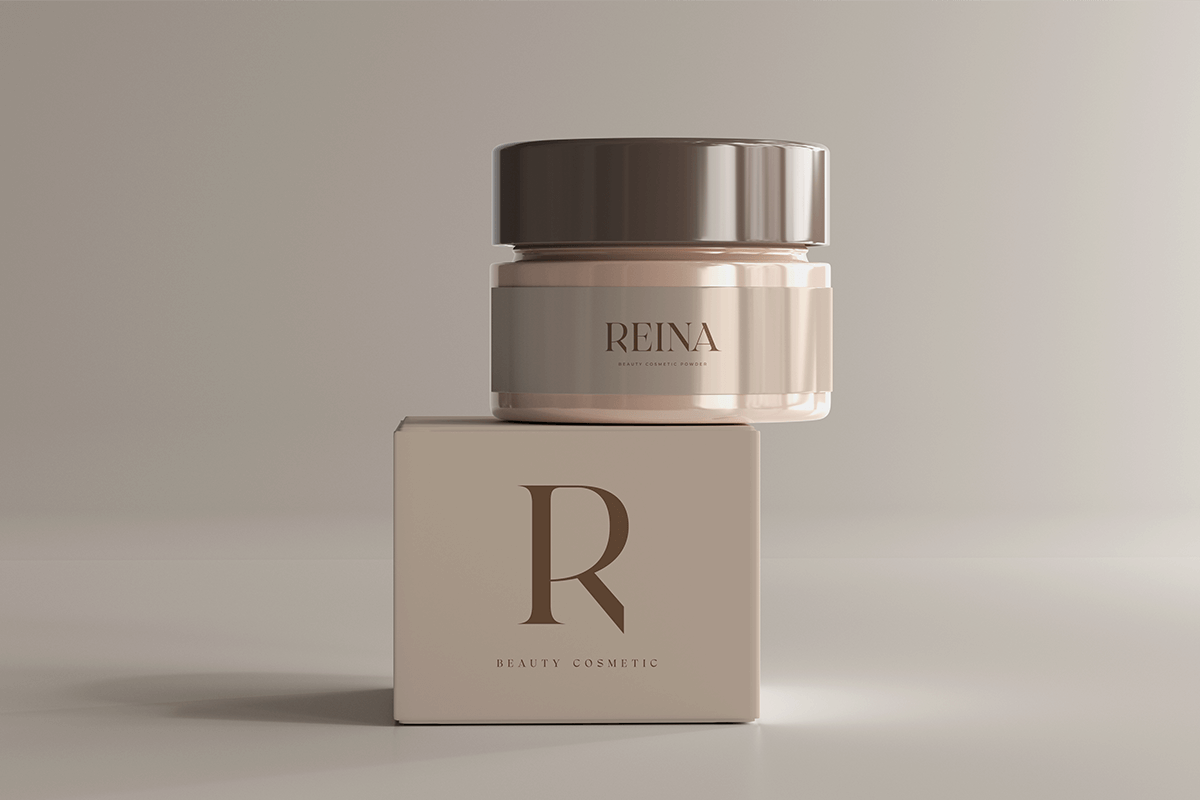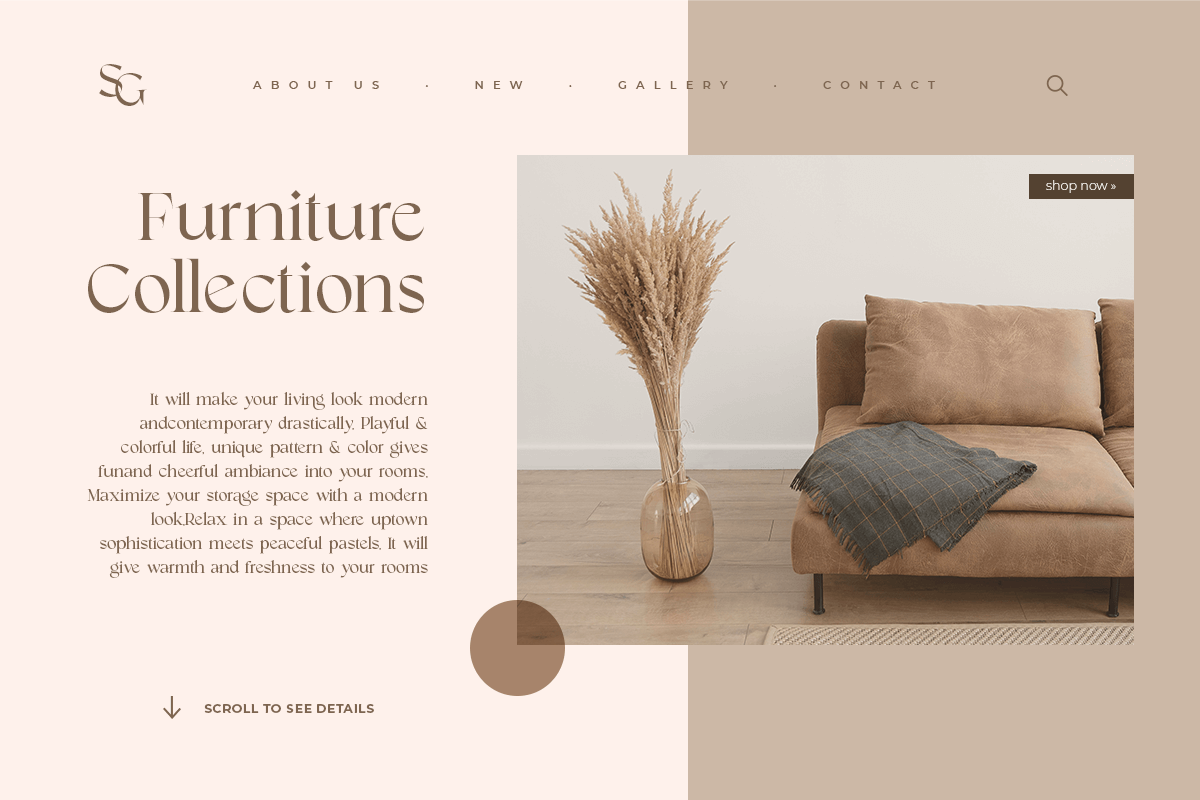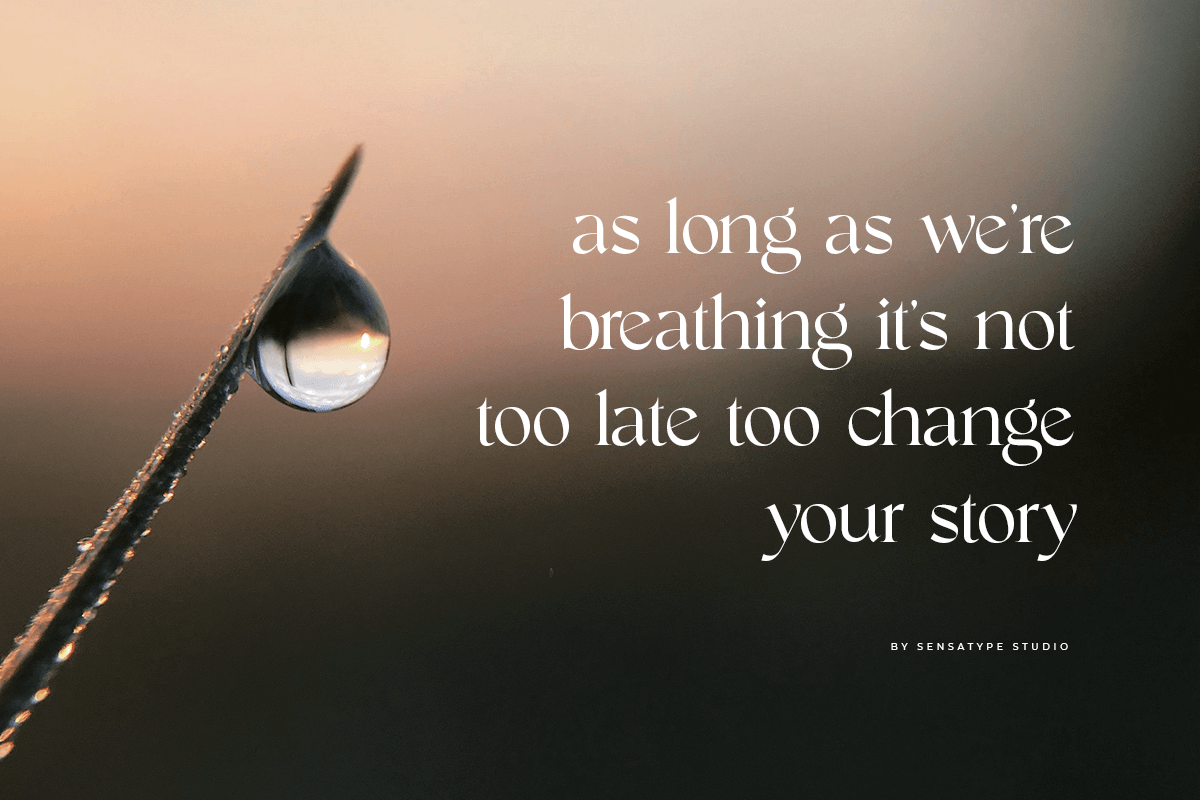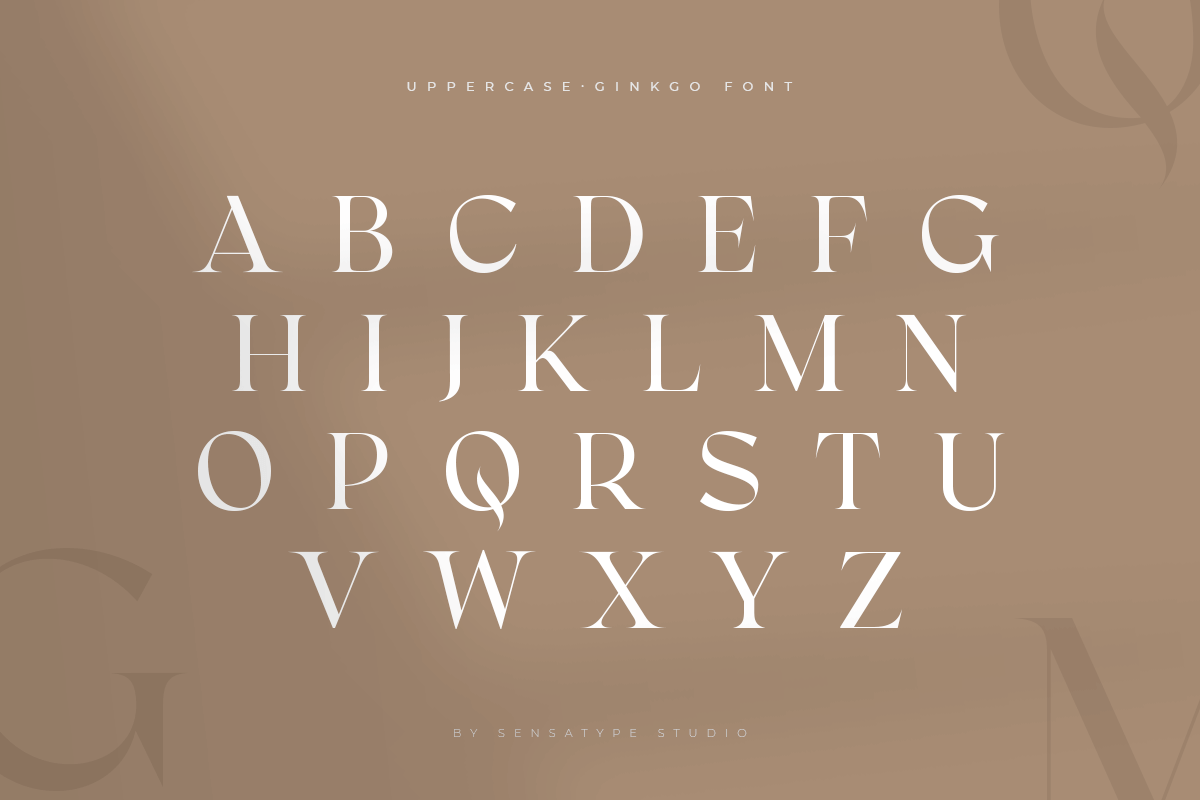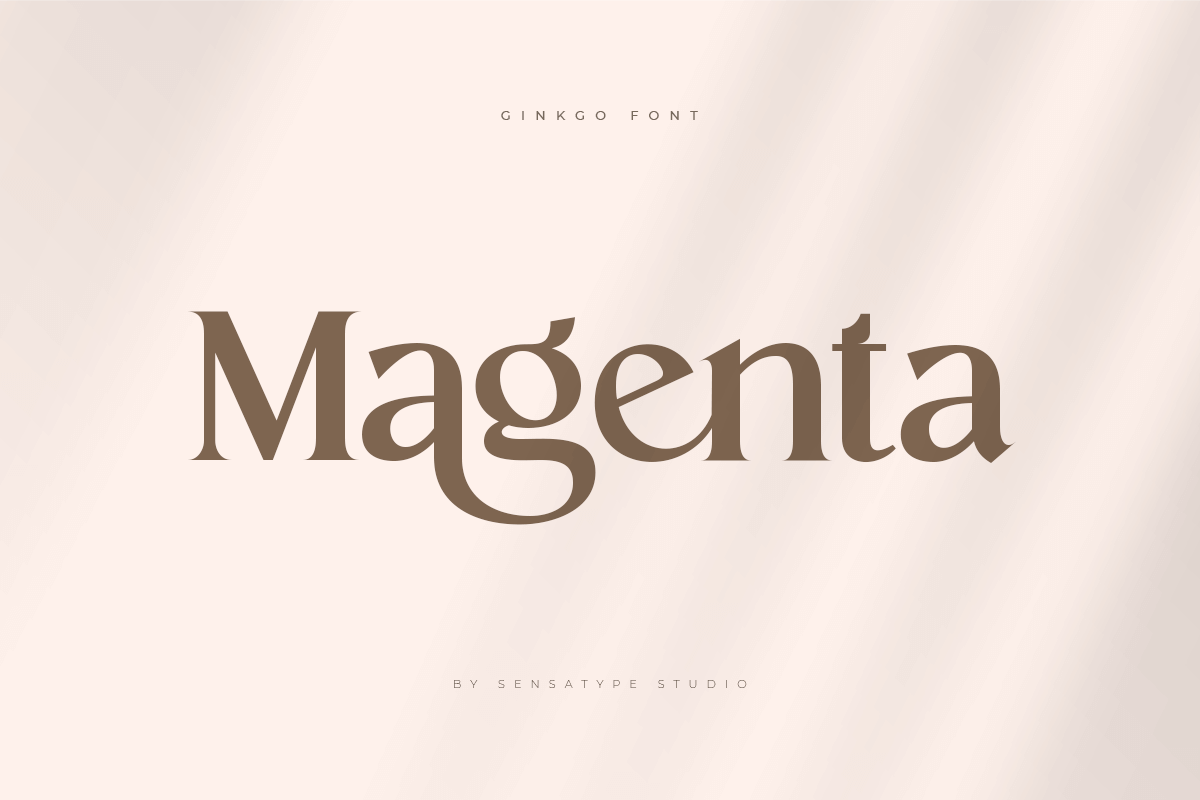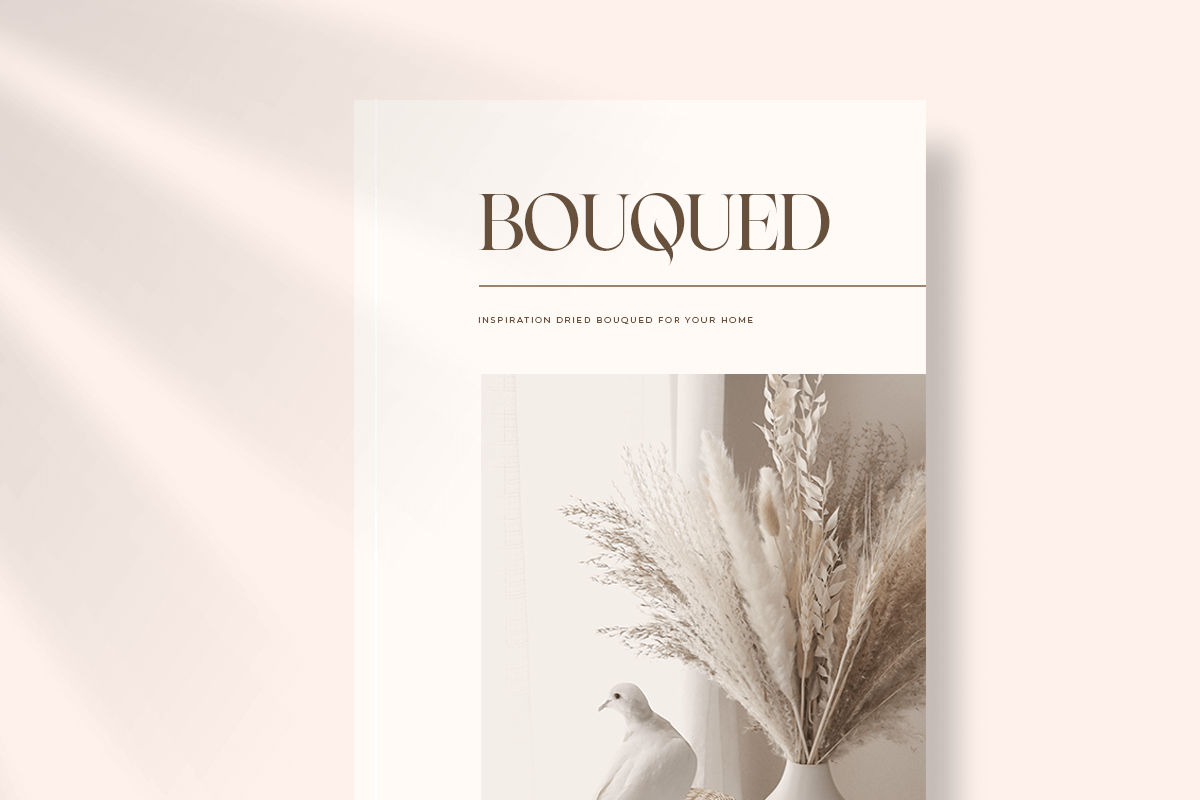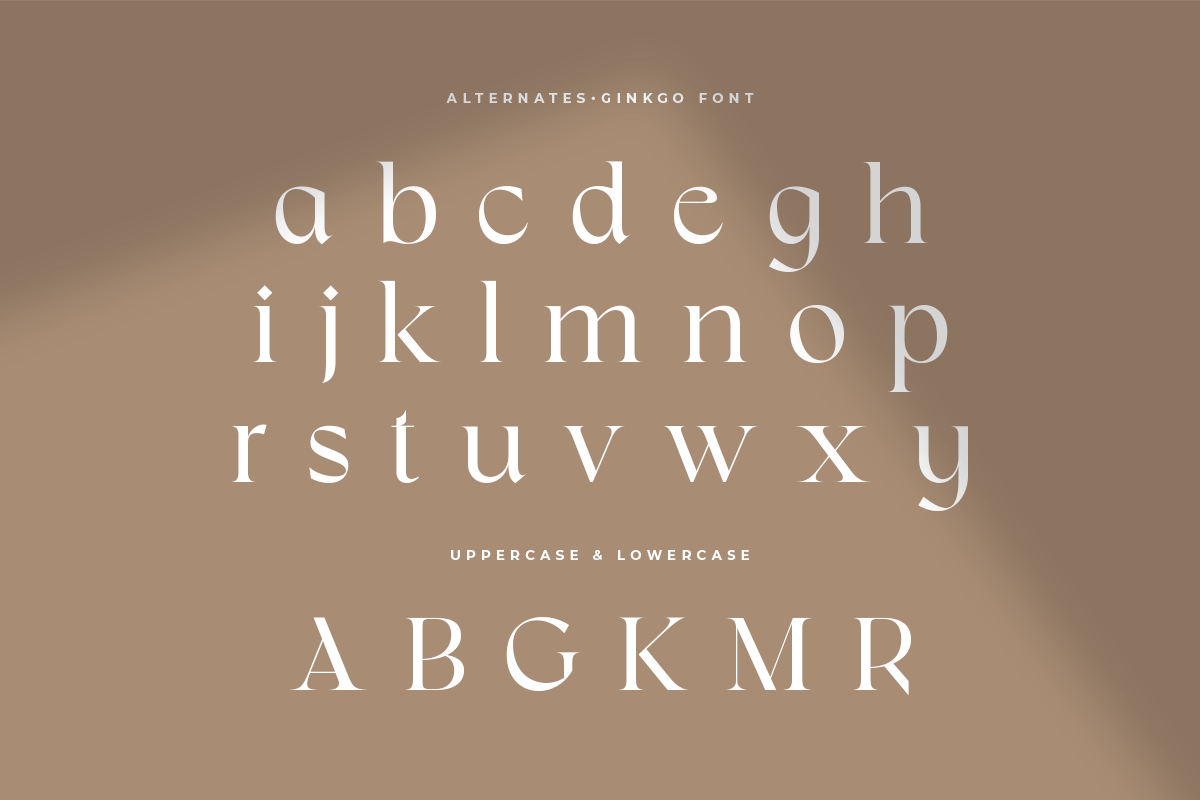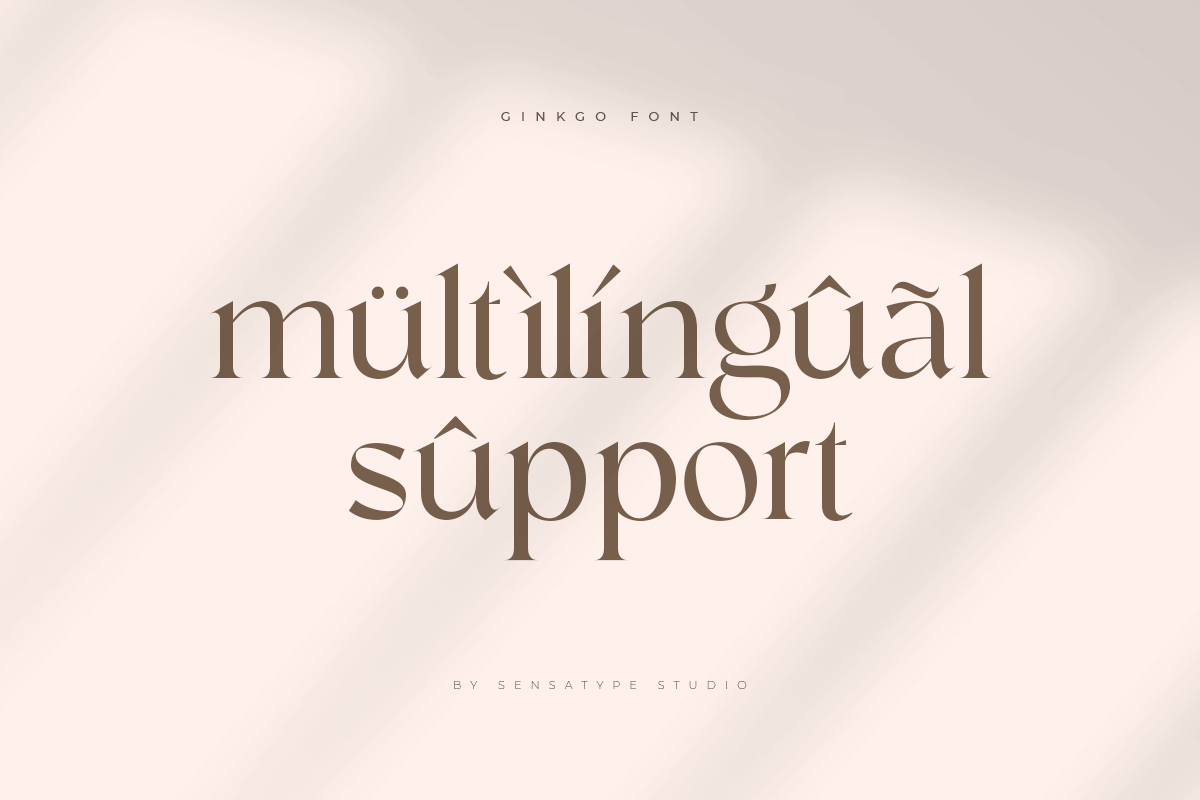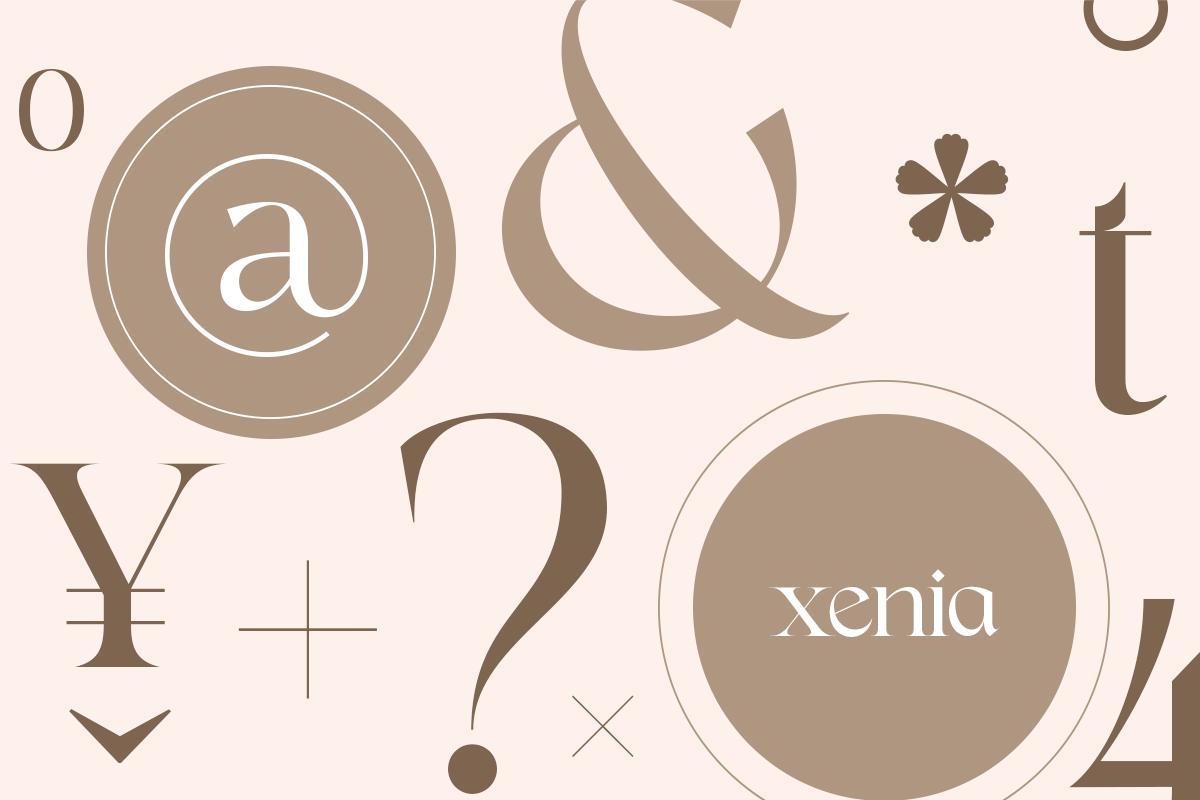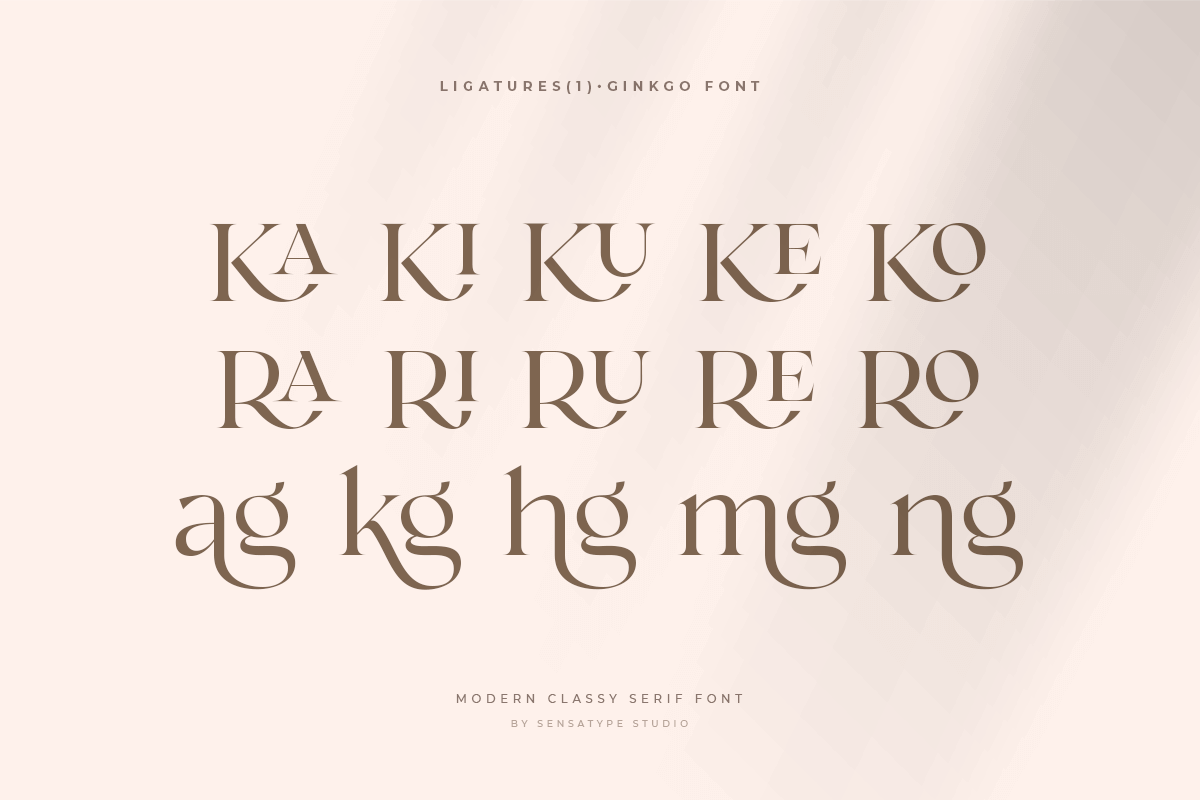
Ginkgo - Modern Classy Serif Font
Ginkgo is Modern Classy Serif Font Family
Created to answer for any person who needs Classy Modern Serif to leverage designer or product owner that need solutions to make their design look more classy and elegance. And specially for Ginkgo, We just released 4 weights, any ligatures, and any alternate characters to help you create unlimited variations for creative needs.
- 4 weights: Light, Regular, Bold, Black
- Hundred options to get creative variations (combination of Alternate, Ligature, Weight)
- Ready with Lowercase and Uppercase characters